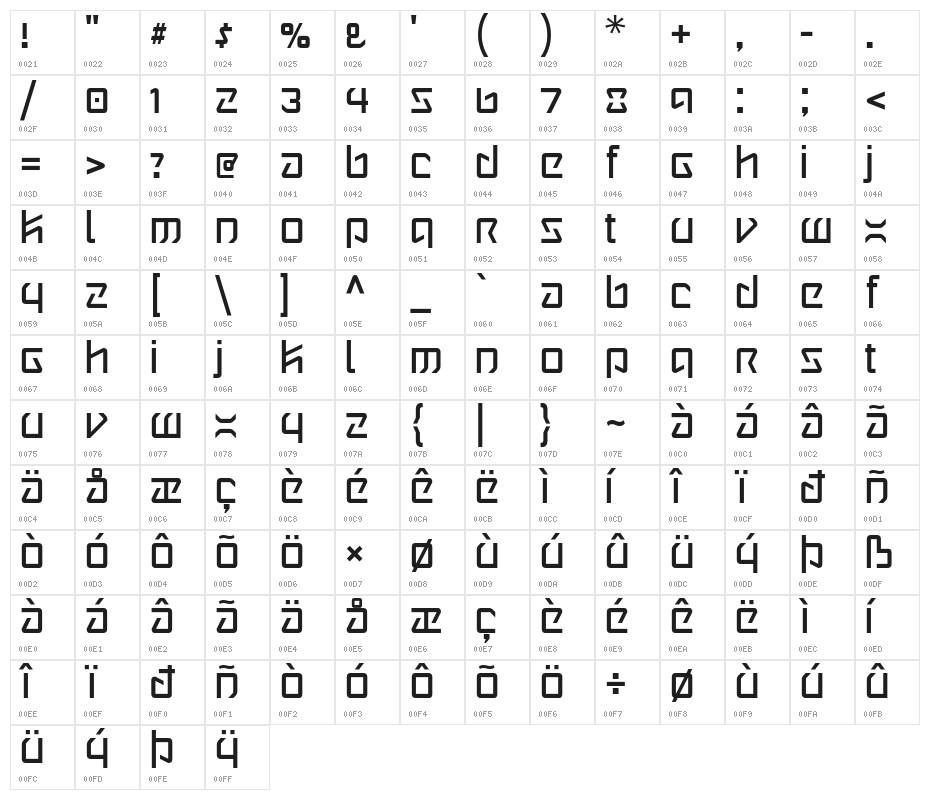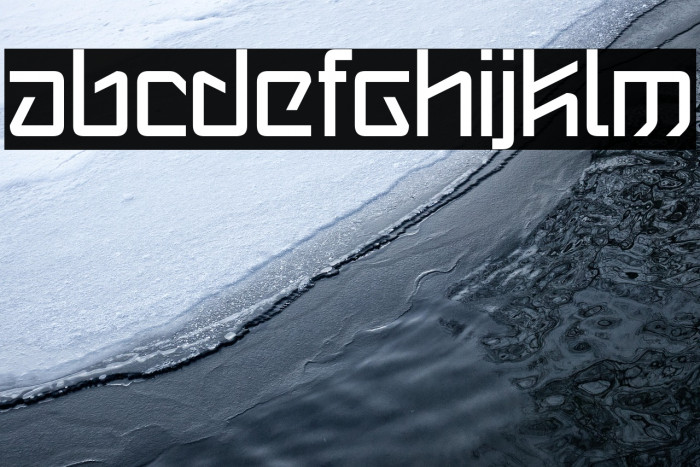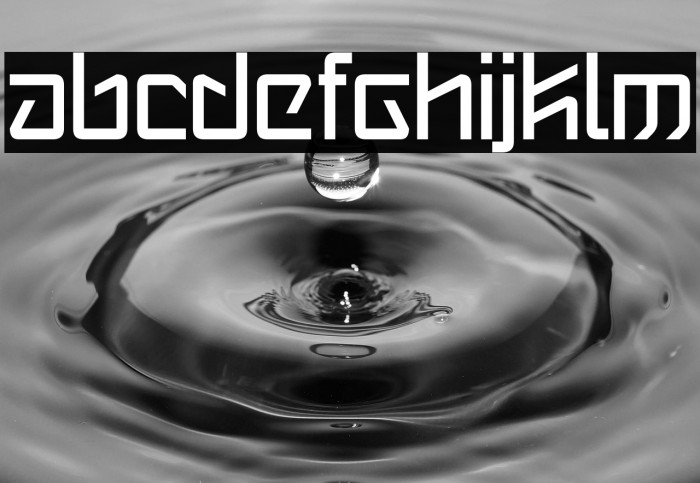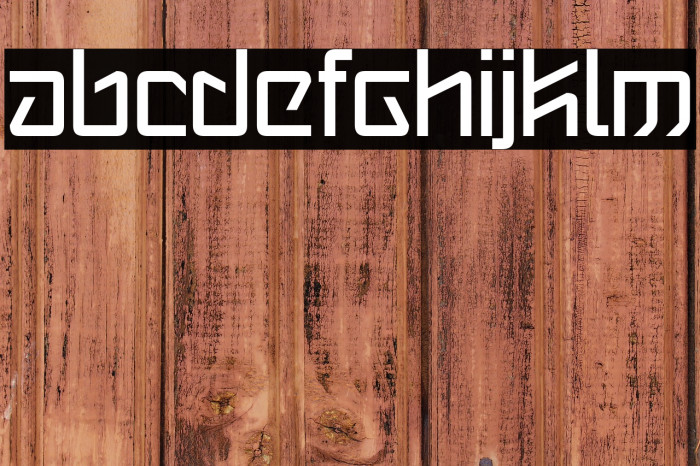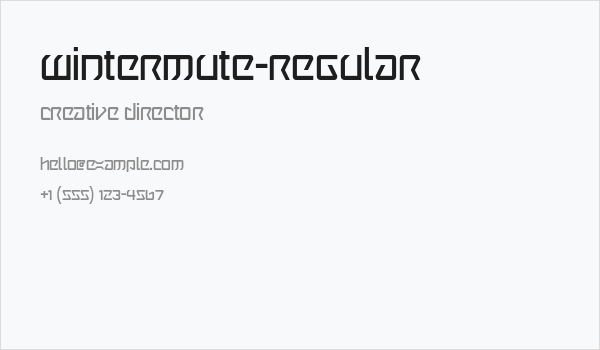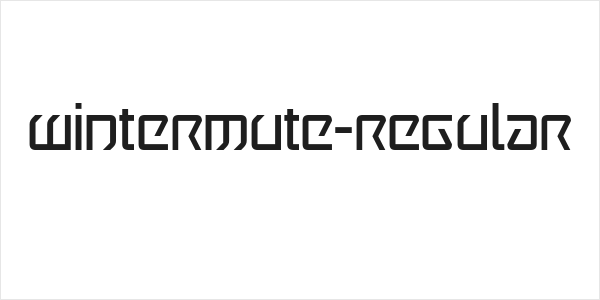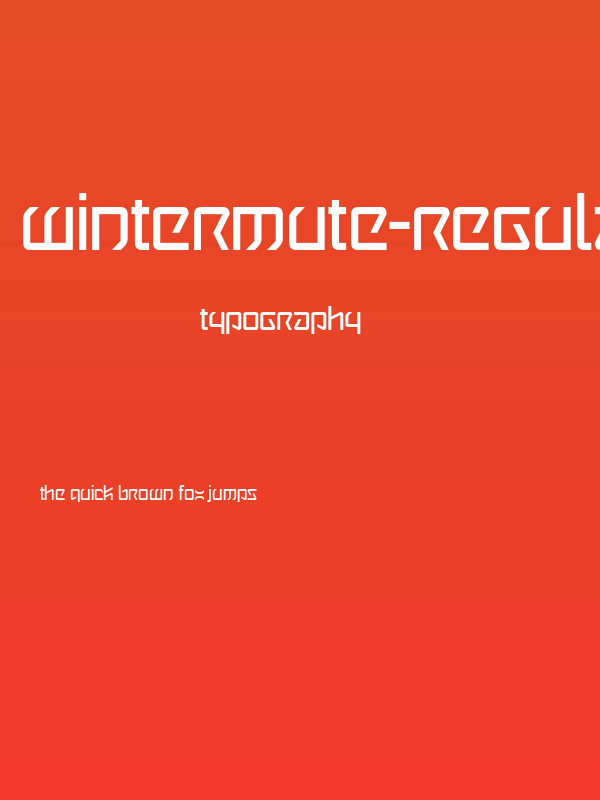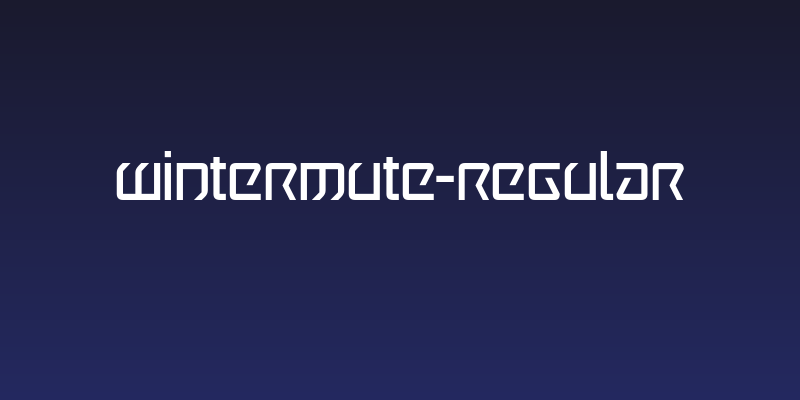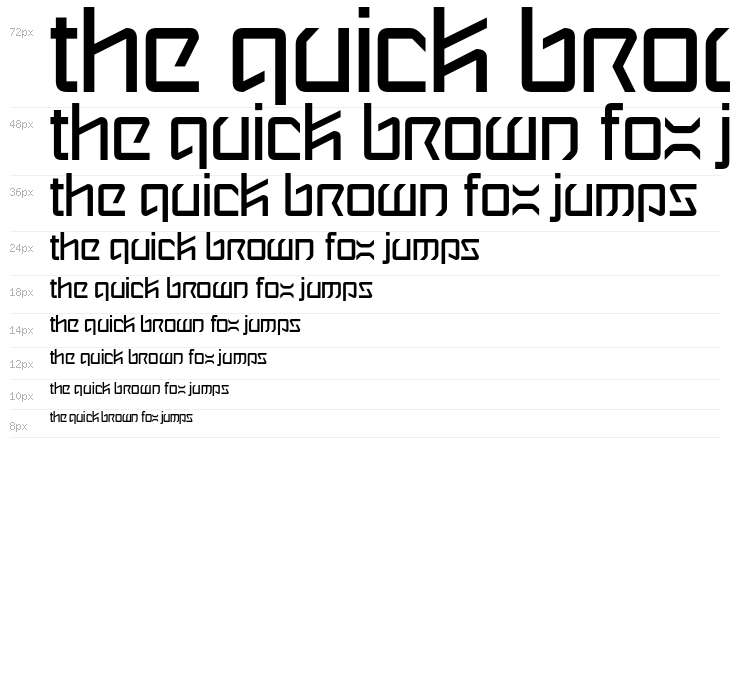
Wintermute-Regular Font
Wintermute-Regular Description
This font features a futuristic and geometric design with sharp angles and clean lines. The characters are constructed with a consistent stroke width, giving it a uniform appearance. The angular design is reminiscent of digital or sci-fi aesthetics, making it ideal for projects that require a modern and tech-savvy look. The uppercase and lowercase letters maintain a similar style, with some variation in the angles and curves to differentiate them. Numbers and special characters are designed to match the overall theme, ensuring a cohesive look across all text elements.
| Proposed Projects | Ideal for tech branding, sci-fi posters, video game titles, and digital interfaces. |